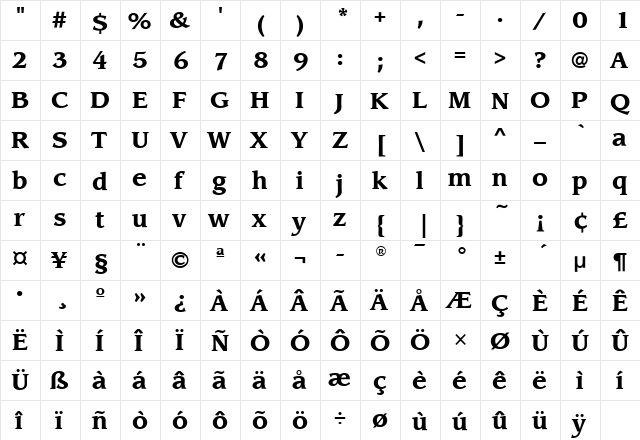
LeawoodITC Bold
Design Context for LeawoodITC Typeface
LeawoodITC echoes the hand-painted signage and woodblock typography of the American frontier, with a warm, rugged personality. Its bold stroke weight gives it real presence on the page.
Perfect for barbecue restaurants, country music branding, vintage poster design, and rustic packaging.
Font Pairing: Combine LeawoodITC with a simple slab or neutral sans — period-accurate companions reinforce the vintage feel without competing for attention.
Pro Tip: Pair LeawoodITC with aged textures or distressed backgrounds to amplify its vintage personality.